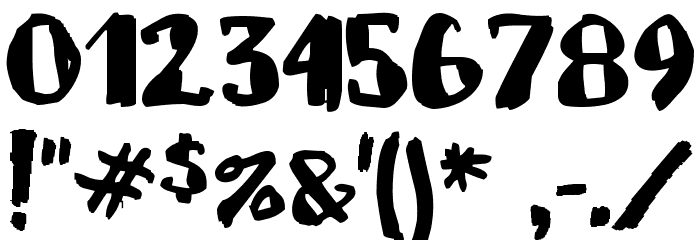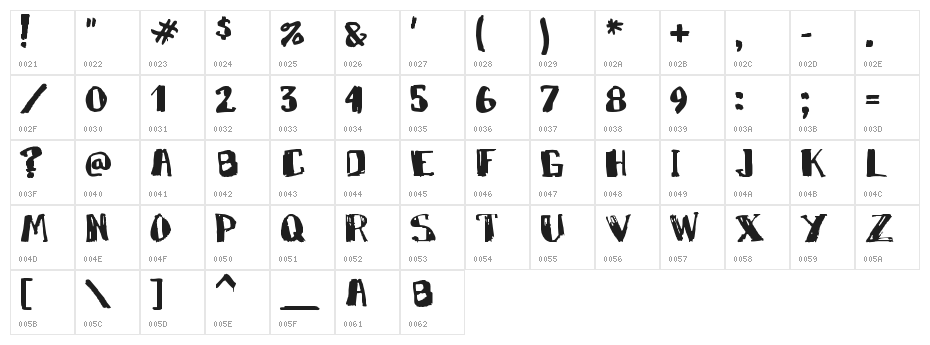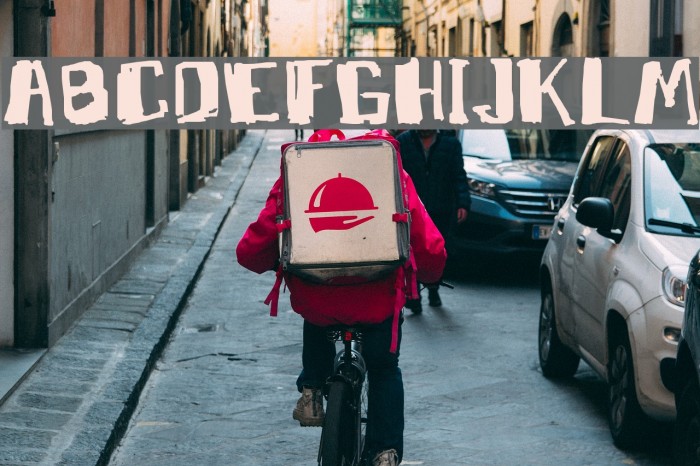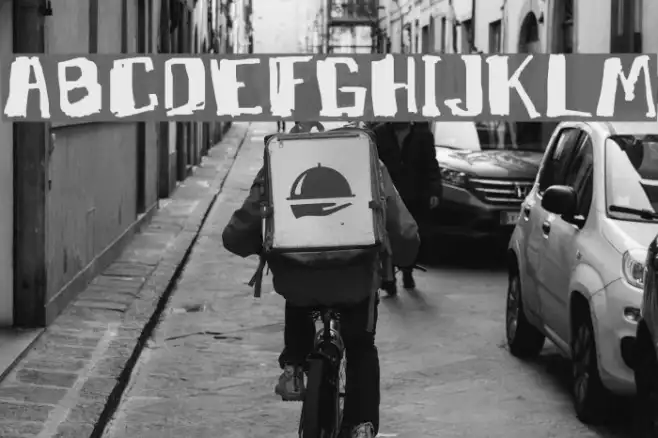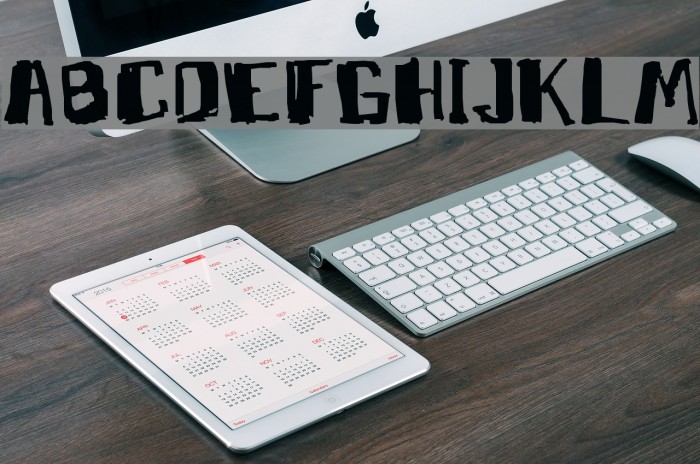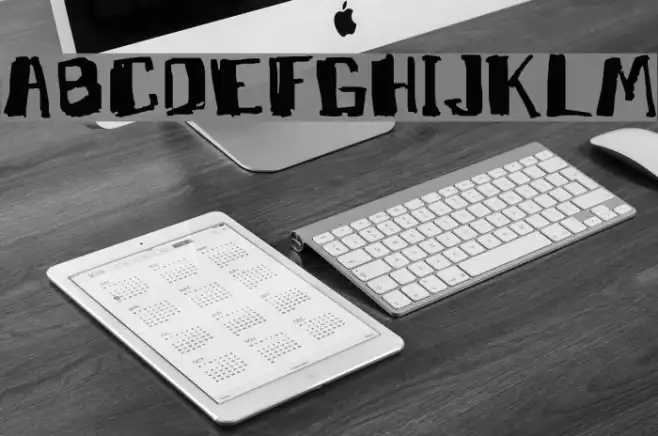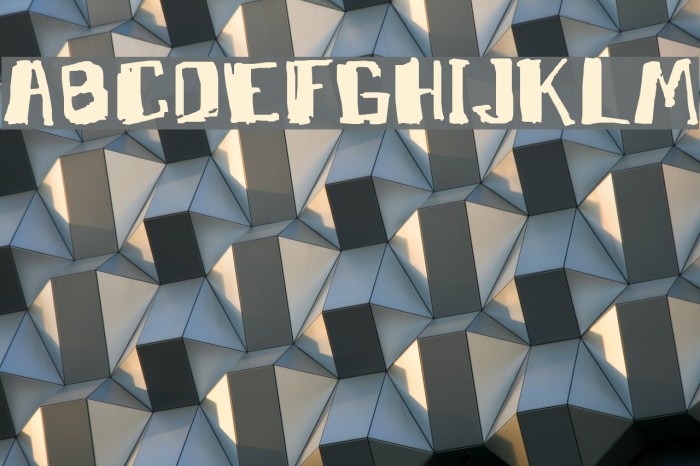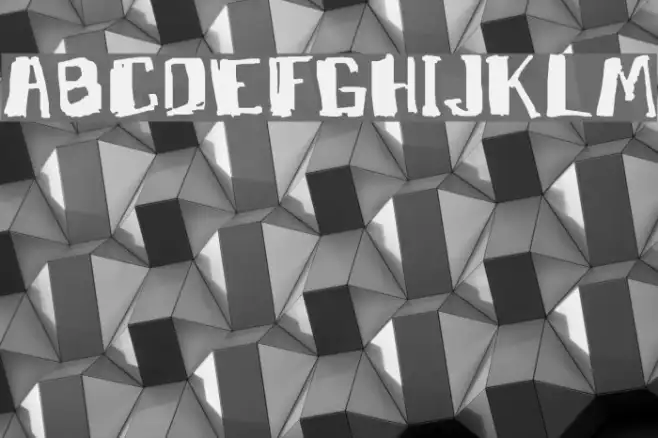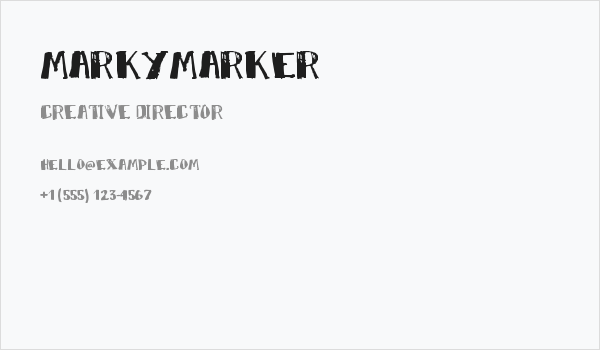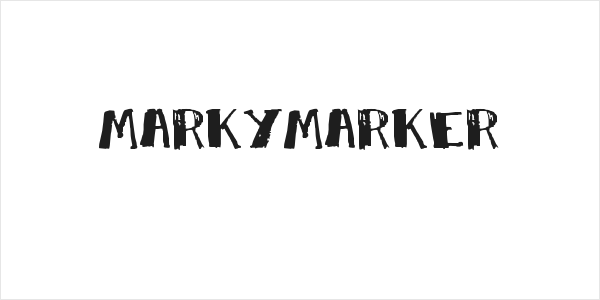
MarkyMarker Font
MarkyMarker Description
This font exudes a bold and dynamic presence with its brush-like strokes and irregular edges, creating a sense of movement and energy. The characters are crafted with a hand-drawn aesthetic, giving them a raw and artistic feel. The uppercase and lowercase letters maintain a consistent style, with varying thicknesses that add depth and texture. Numbers and special characters are equally expressive, making them suitable for creative and eye-catching designs. The overall appearance is both playful and edgy, perfect for projects that require a standout visual impact.
| Proposed Projects | Ideal for posters, album covers, graffiti art, and branding that requires a bold, artistic touch. |